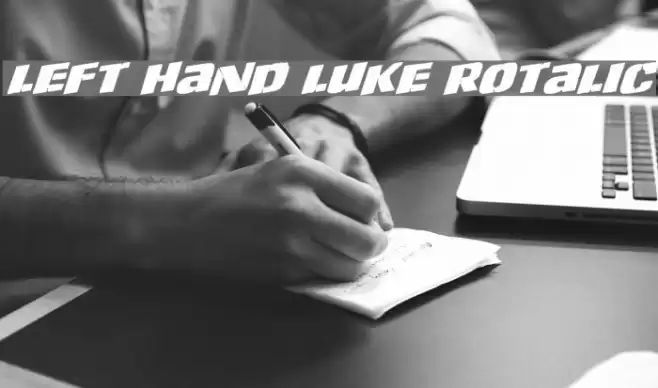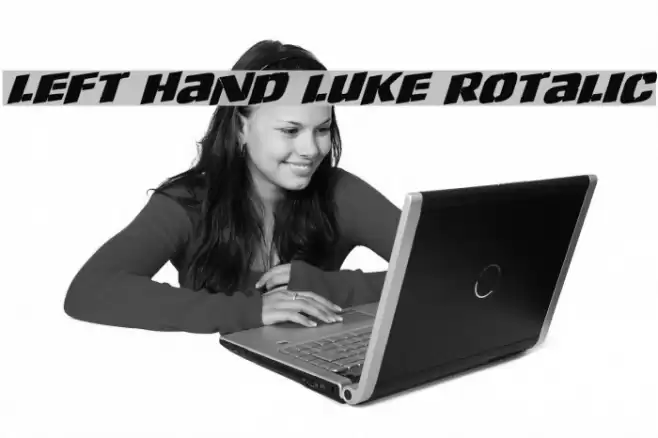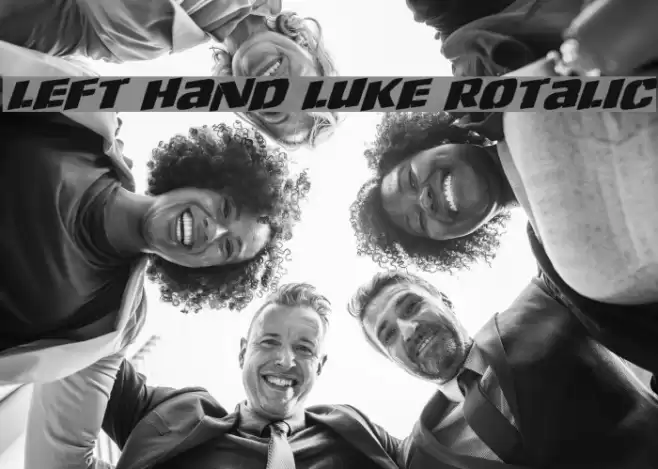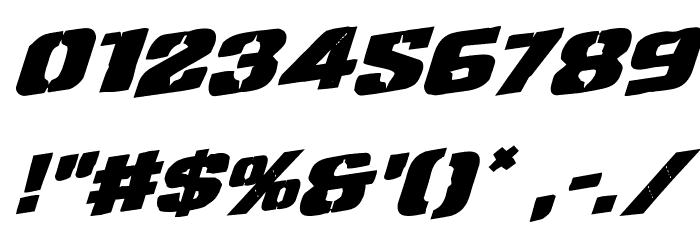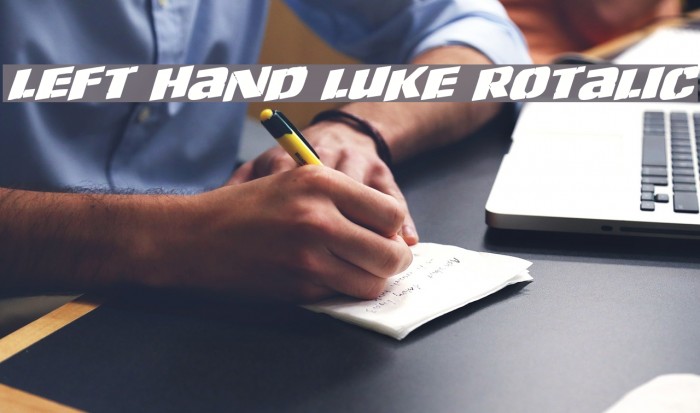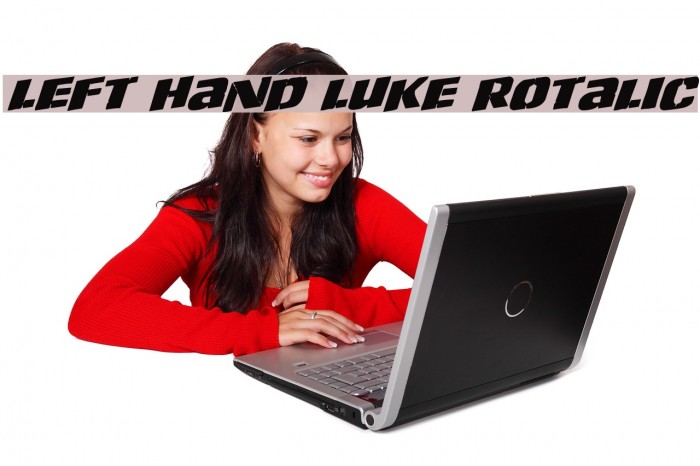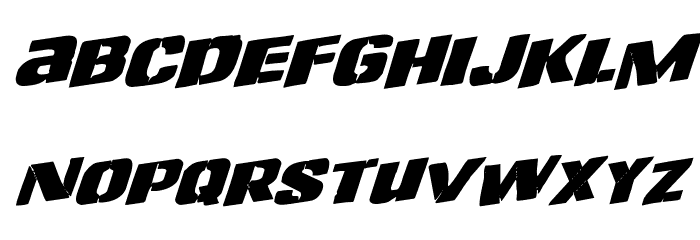
Left Hand Luke Rotalic Font
Left Hand Luke Rotalic Description
This font features a bold, italicized style with a strong, dynamic presence. The characters are slanted, giving a sense of motion and energy. Each letter is thick and robust, with sharp angles and a slightly condensed form. The uppercase and lowercase letters maintain a consistent style, while the numerals and special characters complement the overall aesthetic. The font's boldness and slant make it ideal for impactful designs that require a sense of urgency or excitement.
A bold, italicized font with a dynamic and energetic style from Distorted Eroded fonts.
- Proposed Projects: Ideal for sports branding, action-themed posters, dynamic logos, and eye-catching headlines.